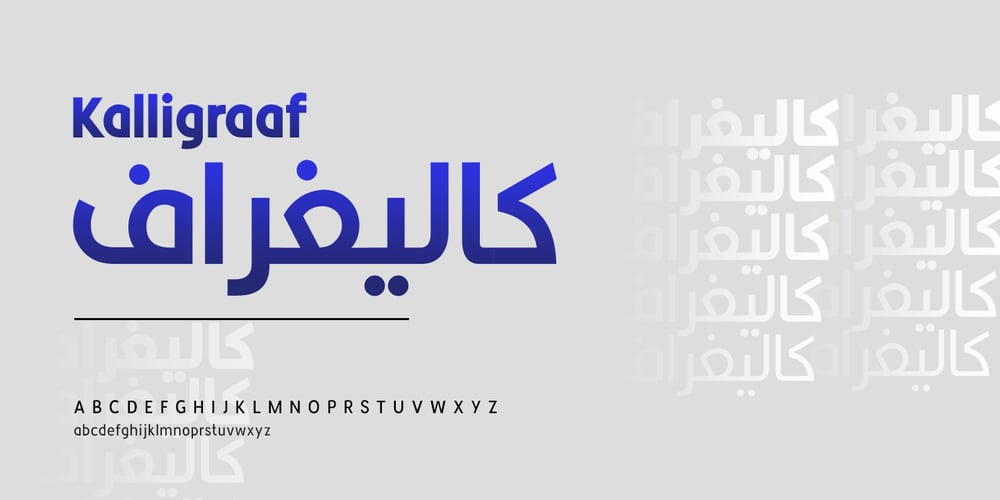
Kalligraaf Arabic Font Family was designed by Hani Hasan and published by Hanifonts. Kalligraaf Arabic contains 5 styles and family package options. Kalligraaf is an Arabic typeface and the main focus is on blending traditional and modern rules in the formulation and design of the typeface. Designed with powerful OpenType features in mind.